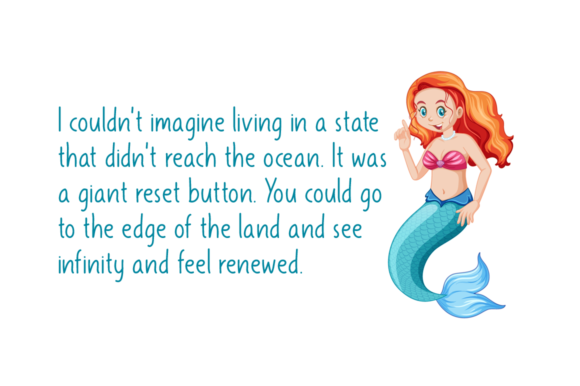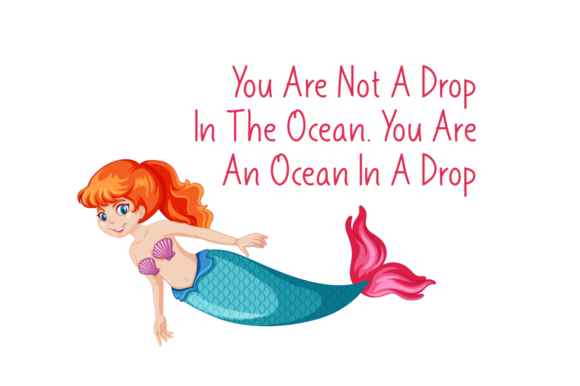
Mermaid Font
db-ku.com - Script & Handwritten -- Mermaid is a cute and friendly handwritten font. Add this beautiful font to each of your creative ideas and notice how it makes them stand out!